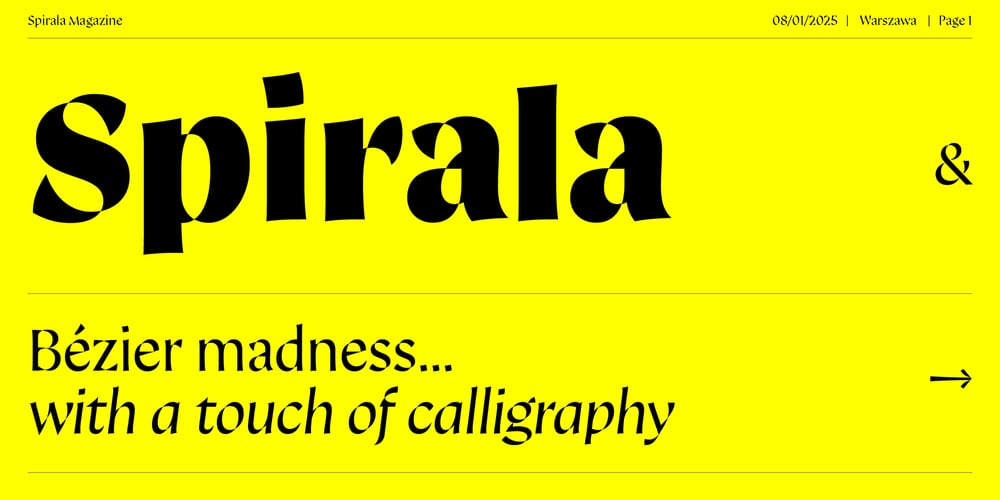
Spirala Display Font Family was designed by Mateusz Machalski and published by Machalski. Spirala Display contains 8 styles and family package options. Spirala is a typeface that, on the one hand alludes to calligraphy with a chamfered nib, on the other, explores the limits of what we can do with Bezier curves. Despite its experimental nature, Spirala can be used in the type setting, giving them a dynamic structure. The overall design is the way stencil-style typefaces are drawn, so the family will work well wherever we need divided elements. Spirala consists of four styles and a complementary italic. Under the creative direction of Mateusz Machalski, the project involved: Karol Mularczyk, Malgorzata Bartosik & Borys Kosmynka